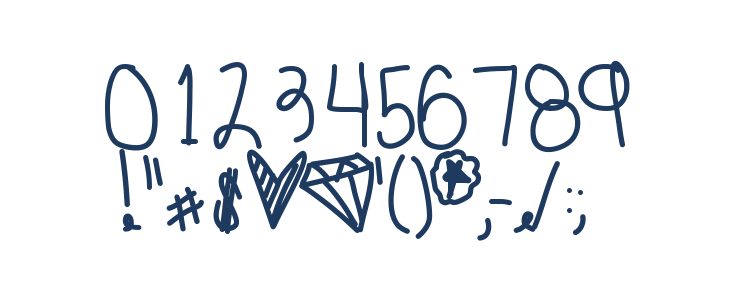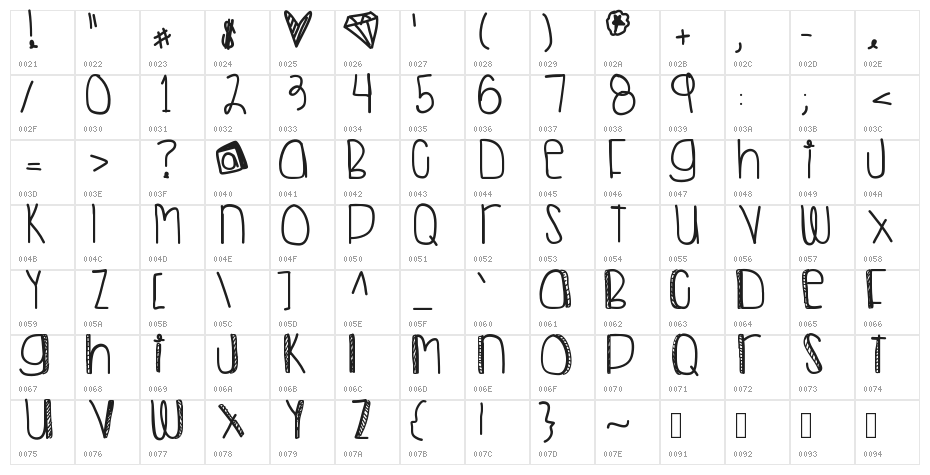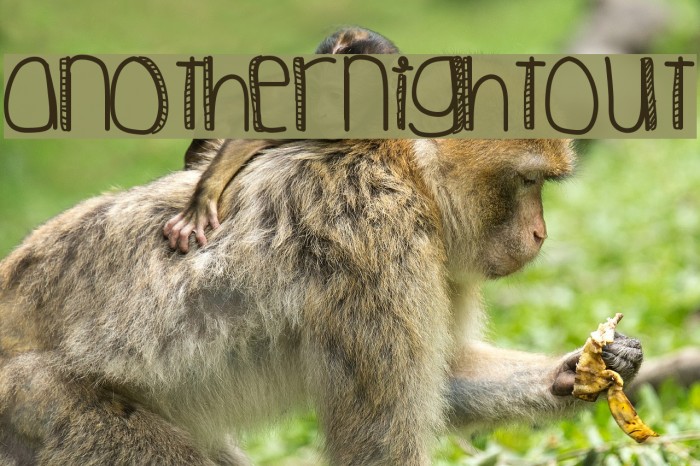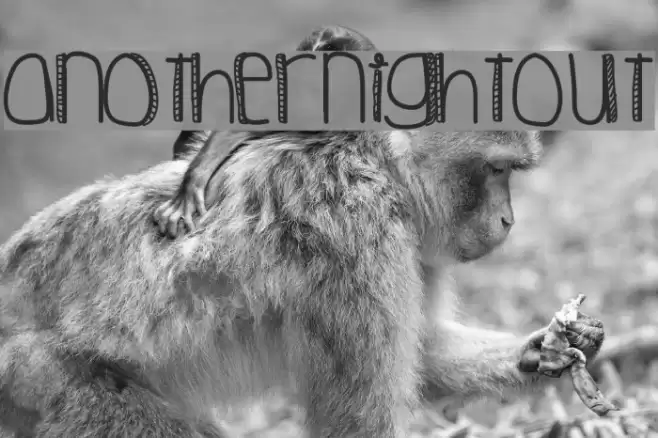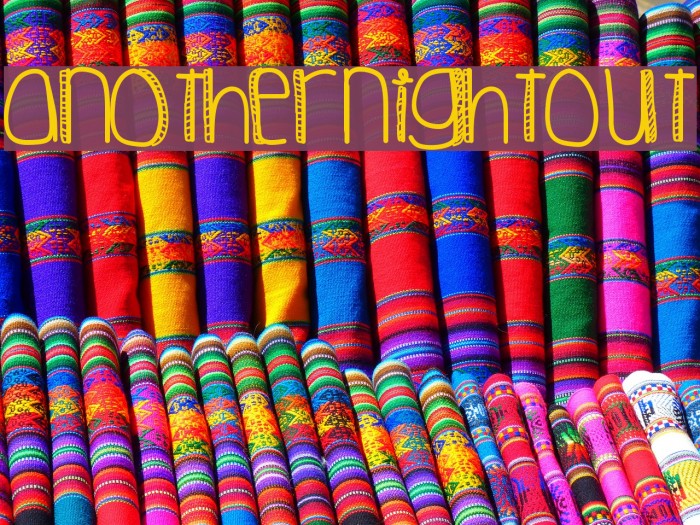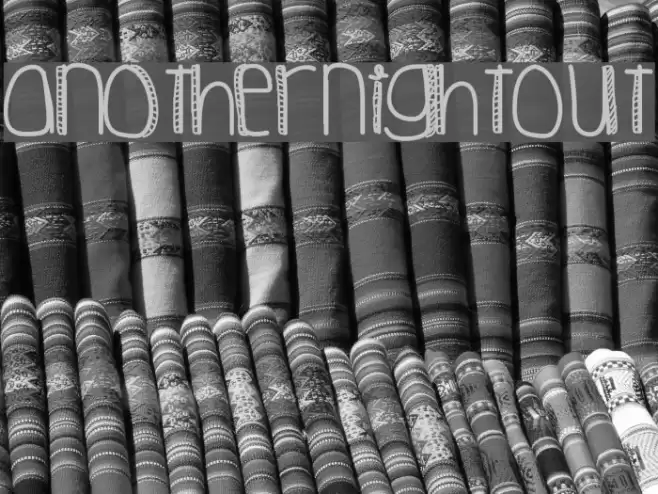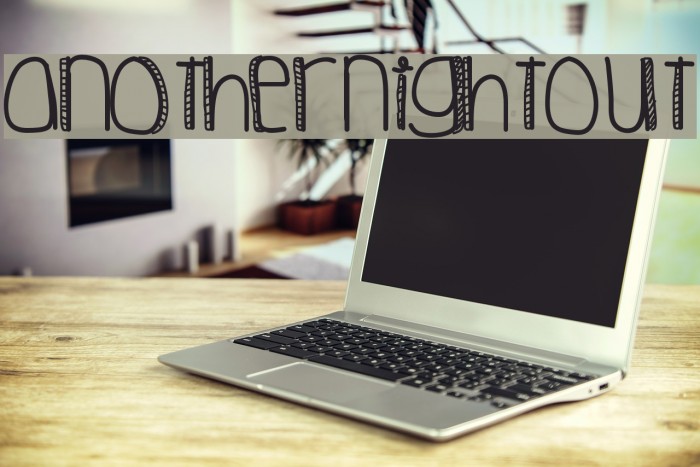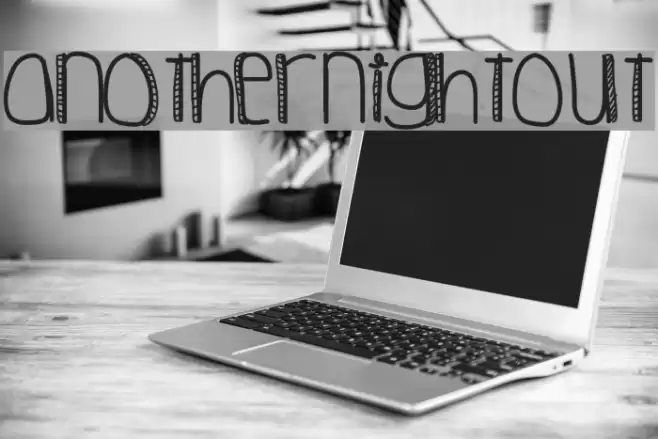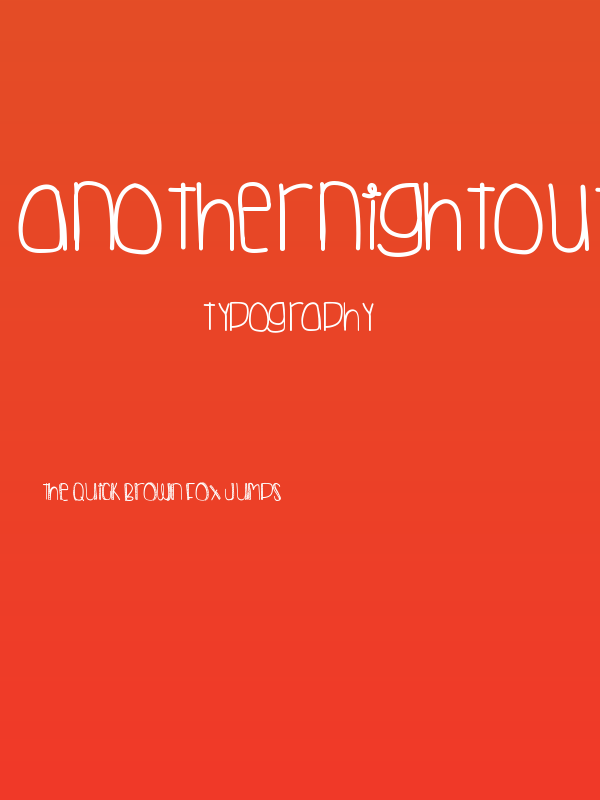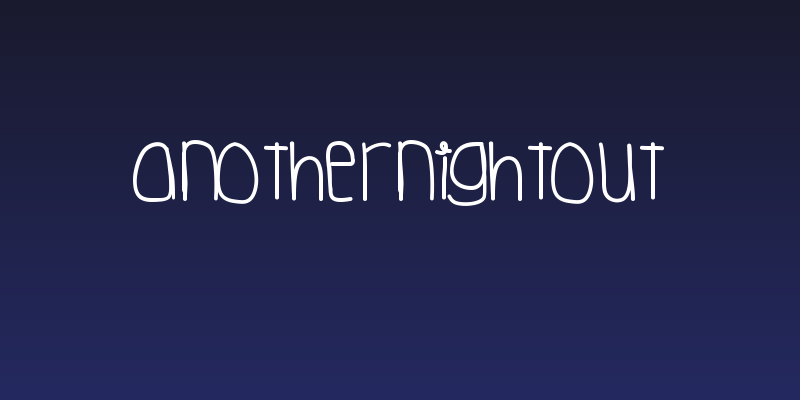
AnotherNightOut Font
AnotherNightOut Description
This playful and whimsical font features a hand-drawn style with a casual, informal appearance. The letters are characterized by their uneven lines and quirky shapes, giving them a unique and artistic flair. The uppercase and lowercase letters maintain a consistent style, with rounded edges and a slightly irregular baseline. Numbers and special characters follow the same playful design, adding to the font's cohesive look. The overall feel is fun and lighthearted, making it suitable for creative projects that require a touch of personality.
| Use Case | Logos, Posters, Creative projects |
| Proposed Projects | Ideal for children's books, greeting cards, playful branding, and creative posters. |